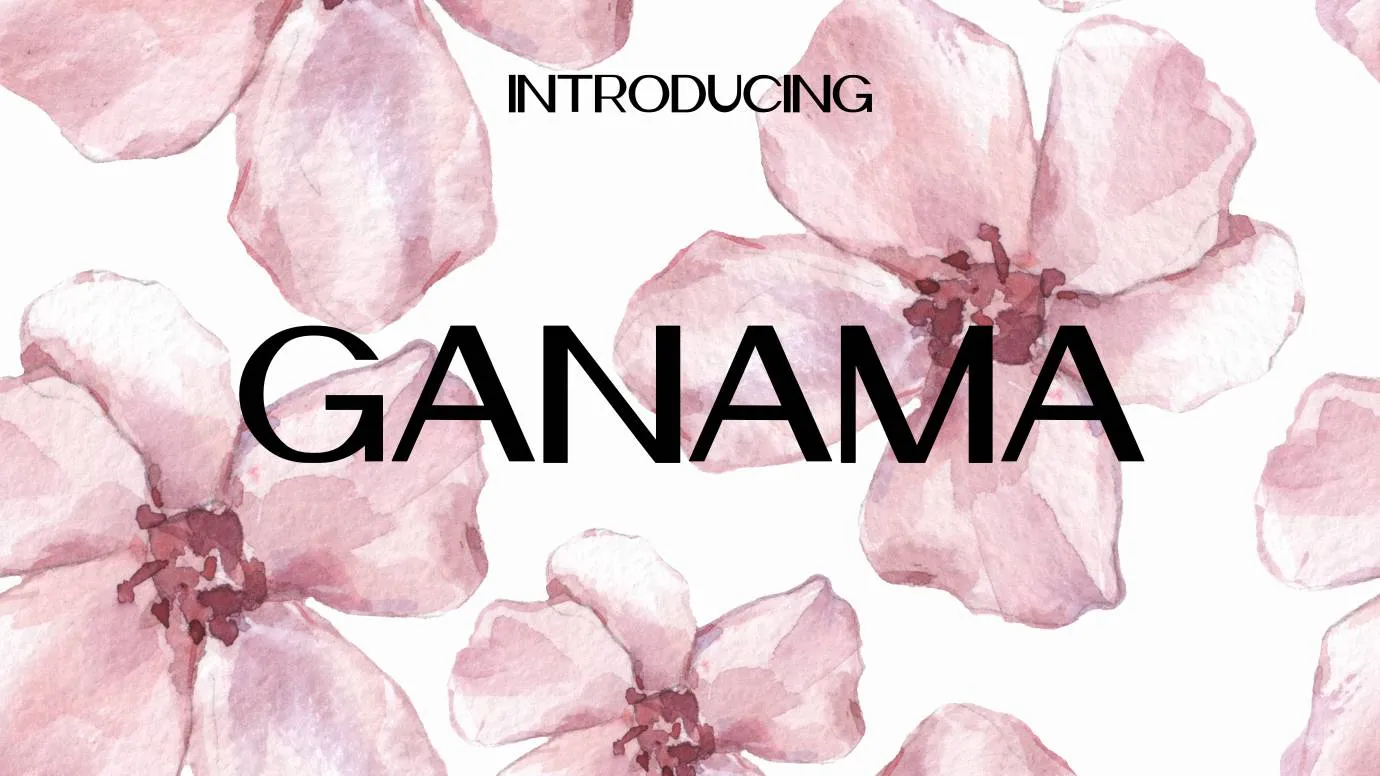
Ganama Font Family is a modern and classic typeface. Rahman Alif is the brilliant mind designer behind the creation of this typeface and it was released by Letterfiastudio.
This luxury look font has an elegant look that is appropriate for fashion designing purposes. Designers can choose this amazing font in more advanced designing and pairing with any other font like margita font.
Ganama Font
NameGanama Font
TypeSans Serif
DesignerRahman Alif
FoundryLetterfiastudio